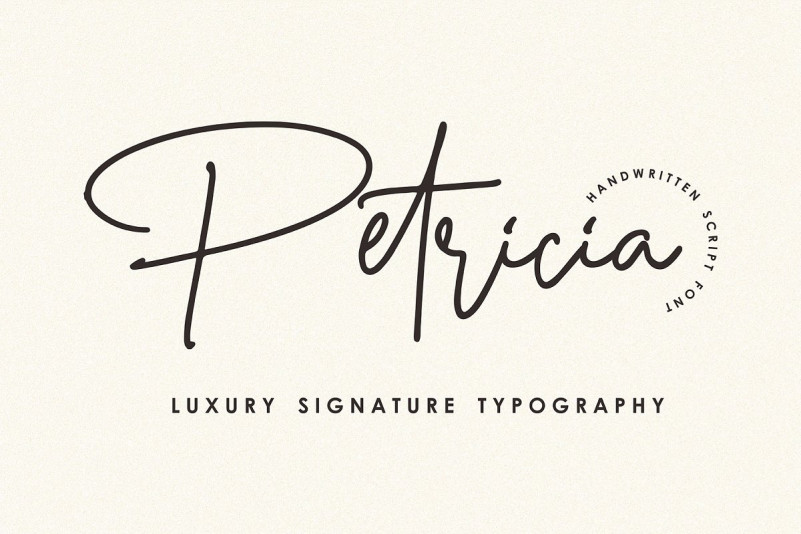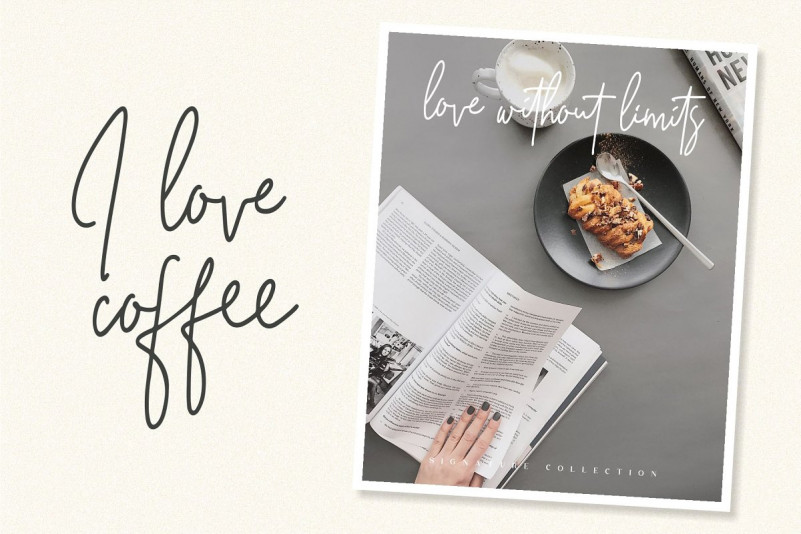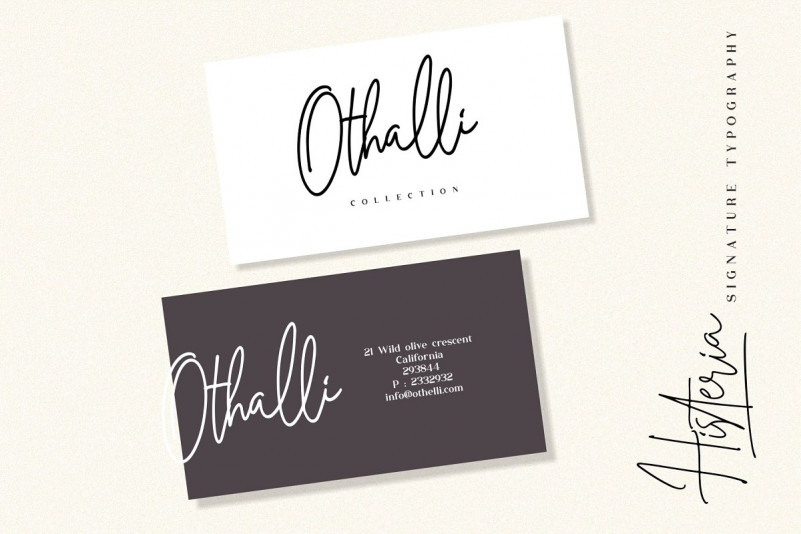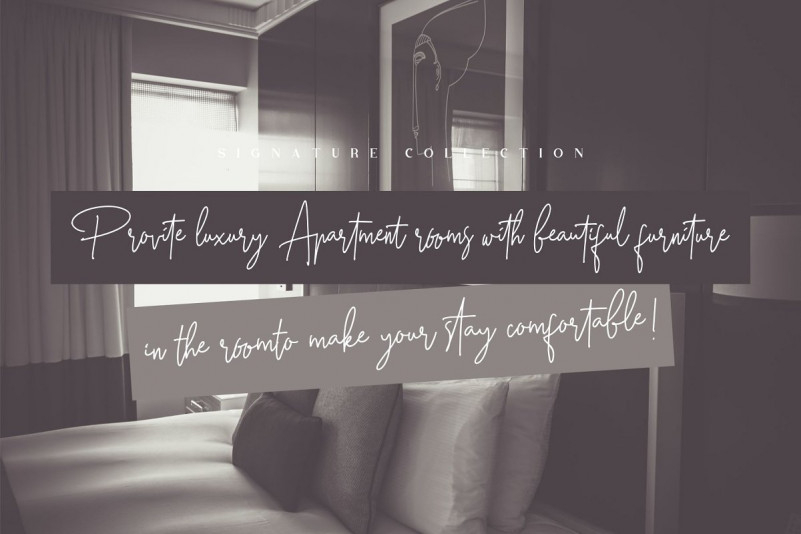
Petricia Signature Font
Petricia Signature – Free Demo
Hi Welcome! Thank you for looking Petricia Font. This is an upscale handwritten script font. This handwritten script has been attentively written, with gentle curves to produce a font thats completely distinctive and original! It’s designed by Hanief Studio. Petricia Signature is a modern feminine font, every single letter has been carefully crafted to make your text look beautiful. With a modern script style this font will be perfect for many different projects ex: photography, watermark, quotes, blog header, poster, wedding, branding, logo, fashion, apparel, letter, invitation, stationery, etc.